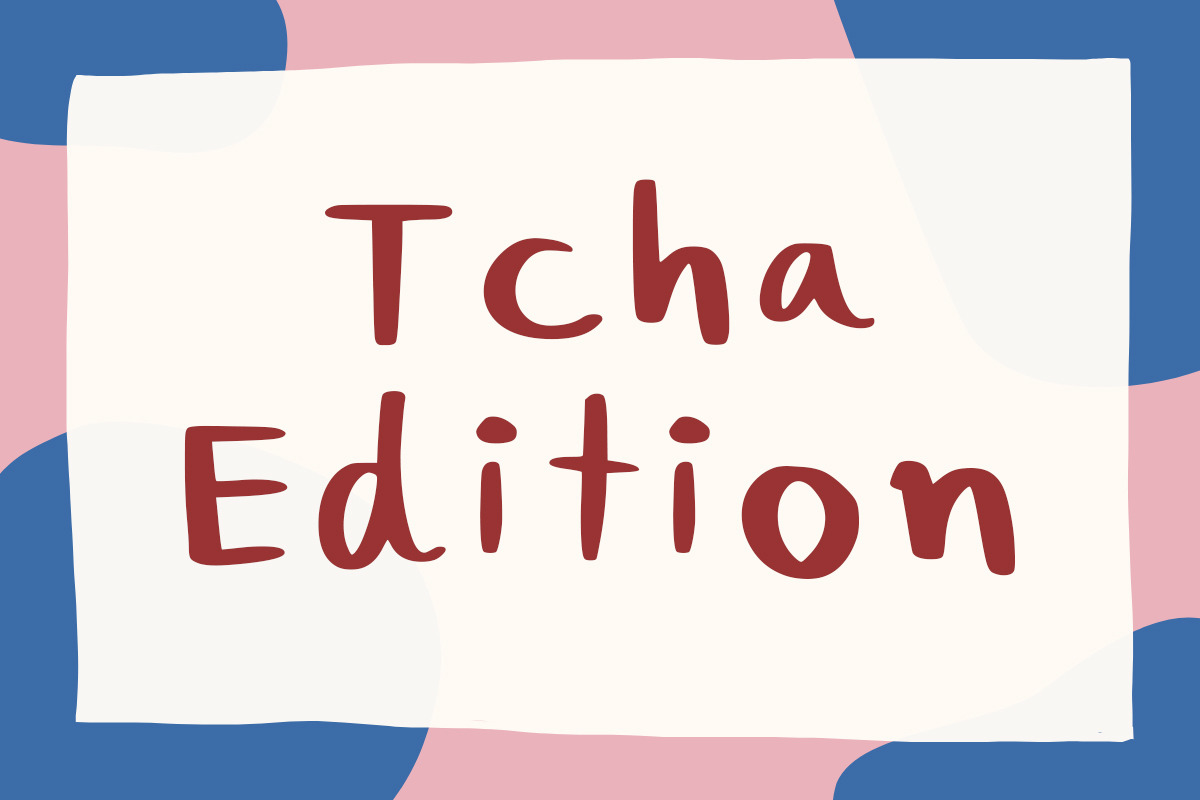
Tcha Edition Font
Tcha Edition is a cute and clean handwritten font. It is suitable for work that requires cuteness or easy-to-read articles. Your options are limitless.